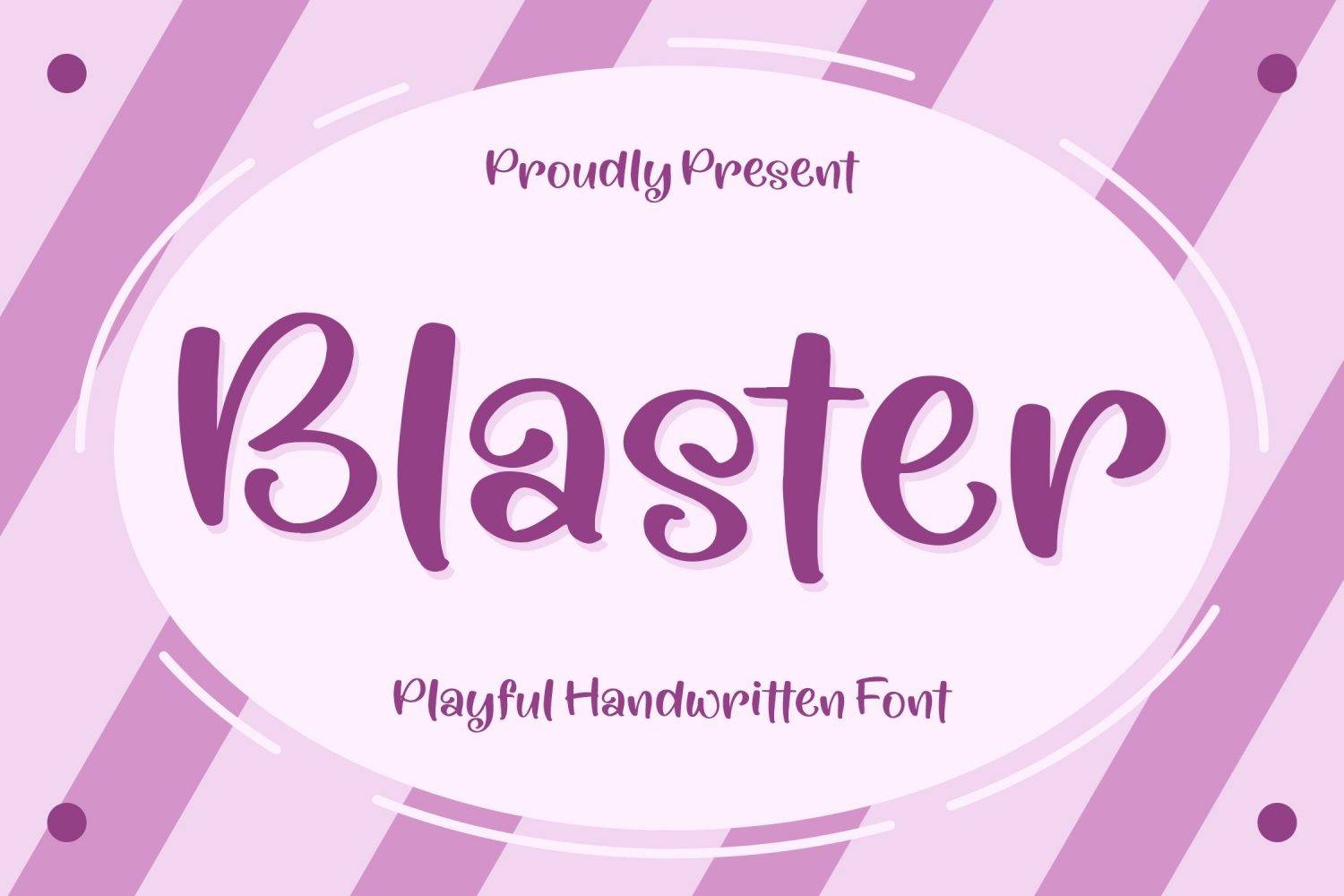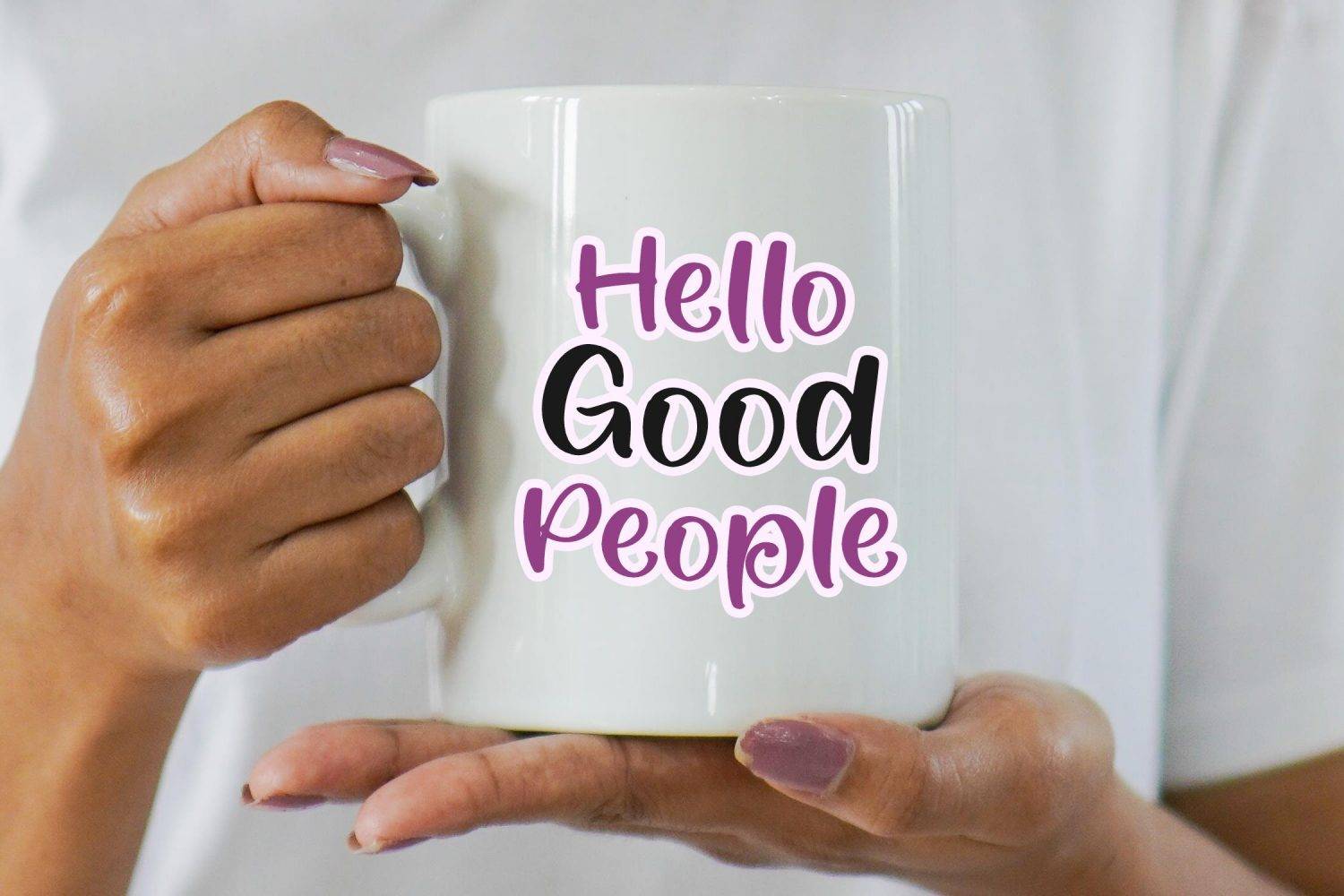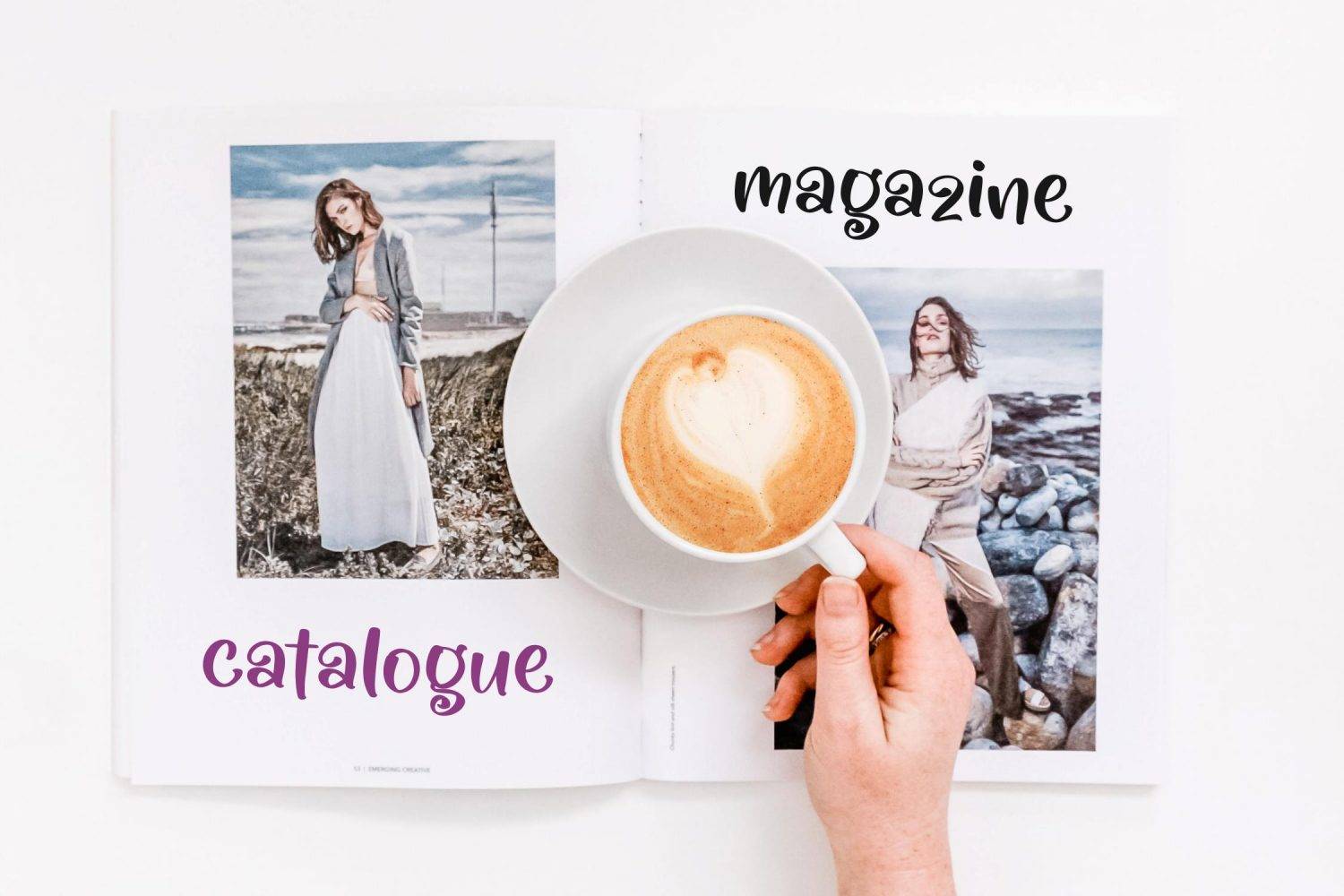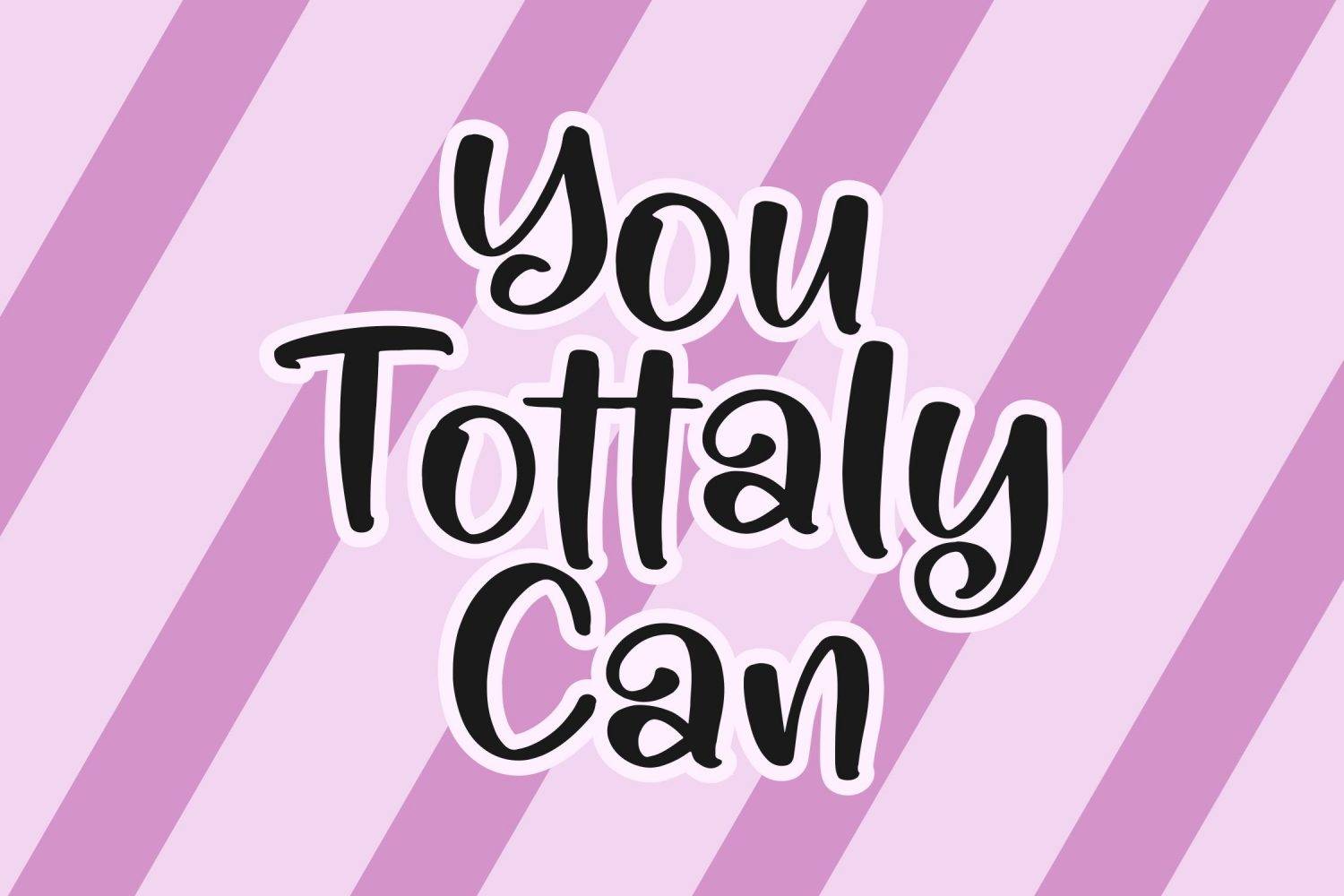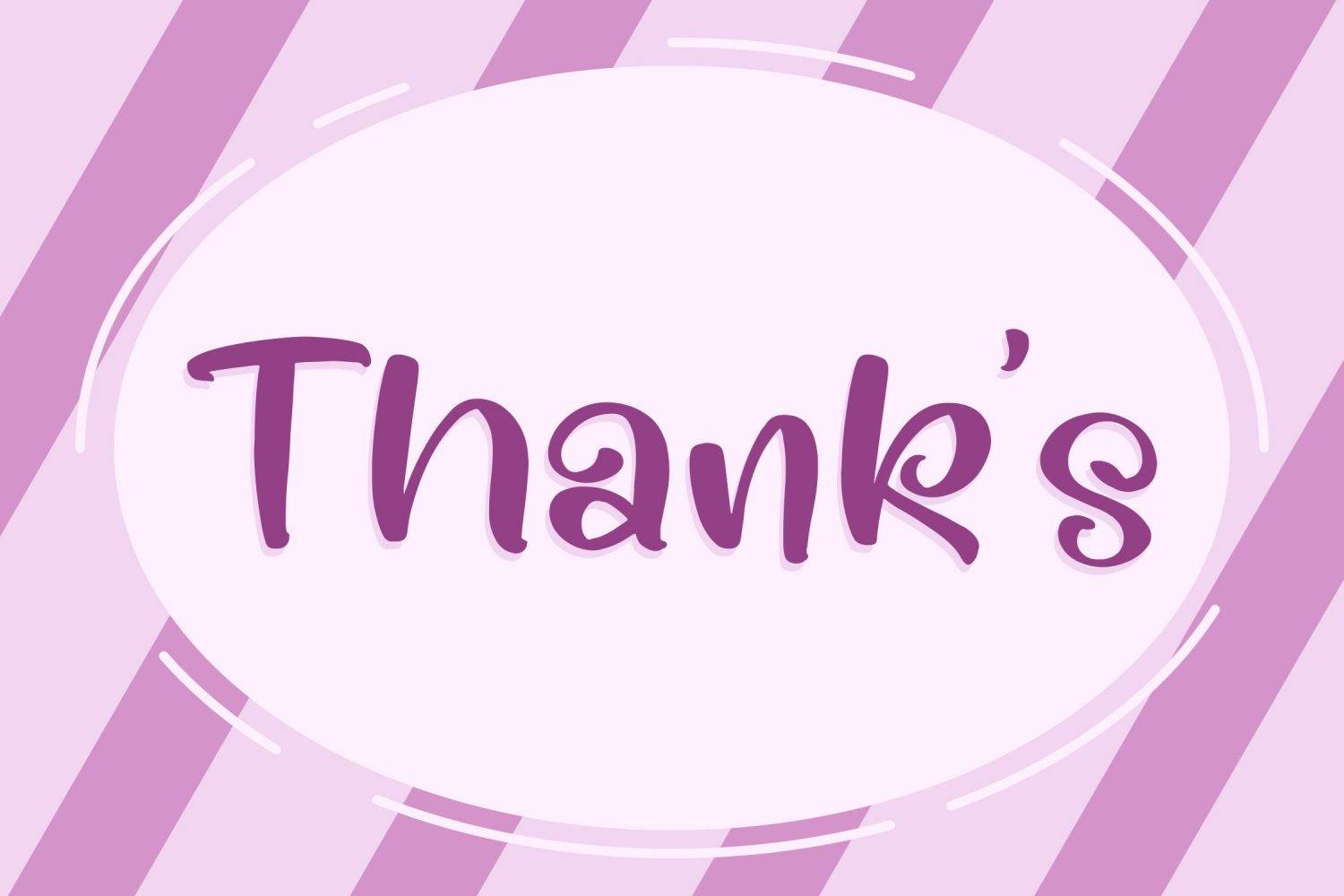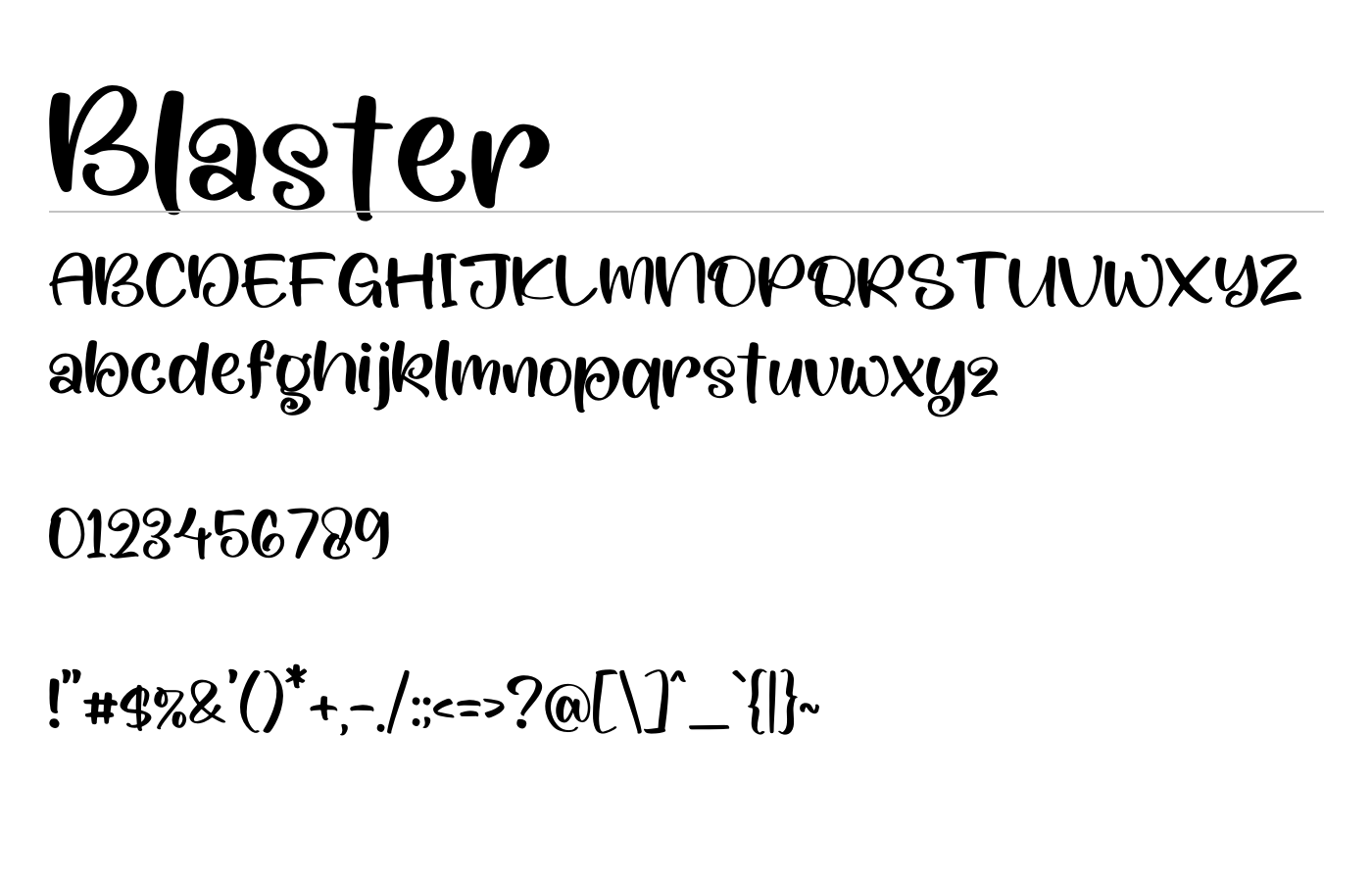
Blaster is a playful and casual script font with a hand-drawn feel, featuring rounded strokes and whimsical letterforms that blend smooth curves with lively, quirky details. Its medium weight and balanced x-height make it versatile for fun, creative projects such as branding, posters, and editorial headlines, where a friendly and approachable tone is desired. This font works well for designs needing a cheerful, informal look that still retains clarity and character.
Blaster Font
About Blaster Font